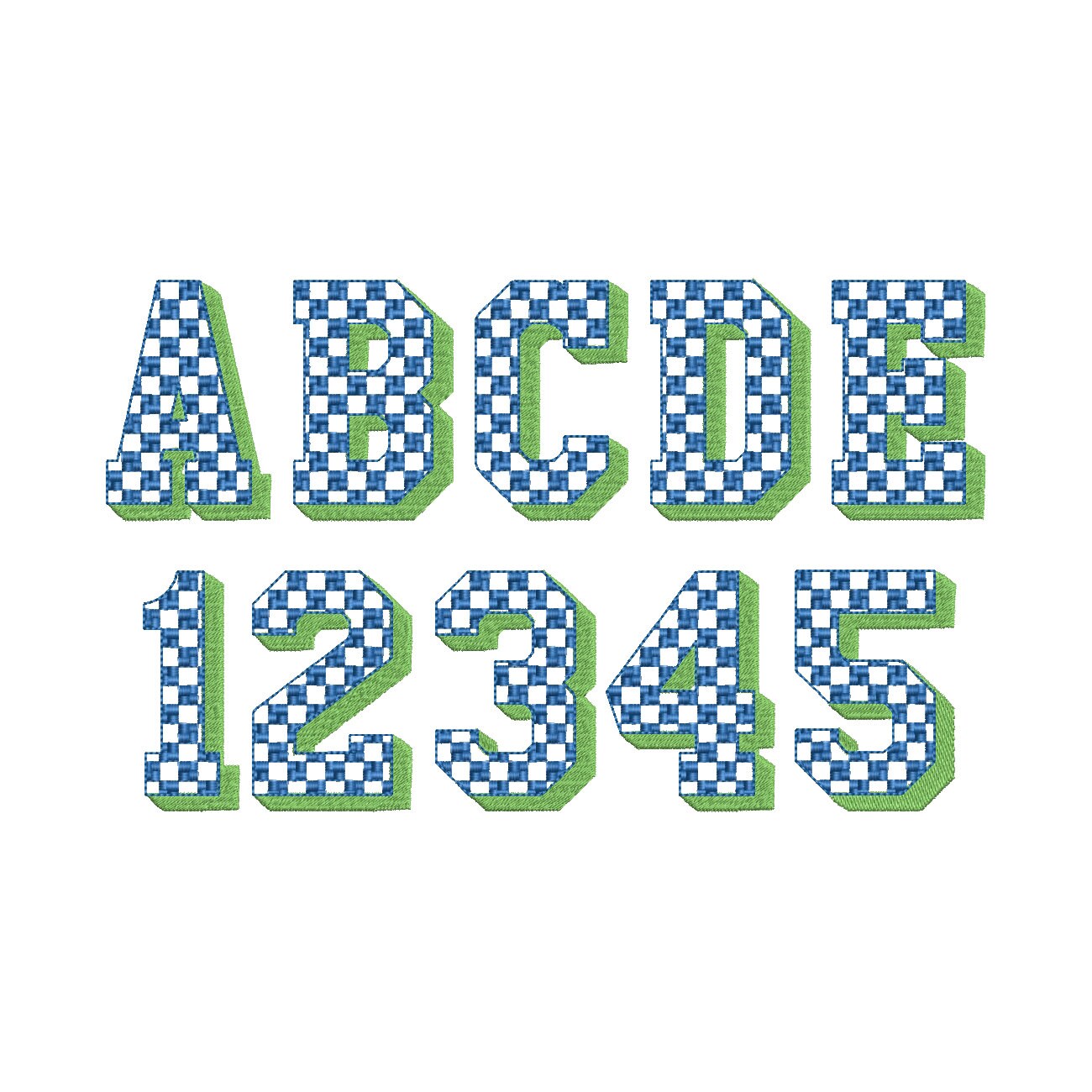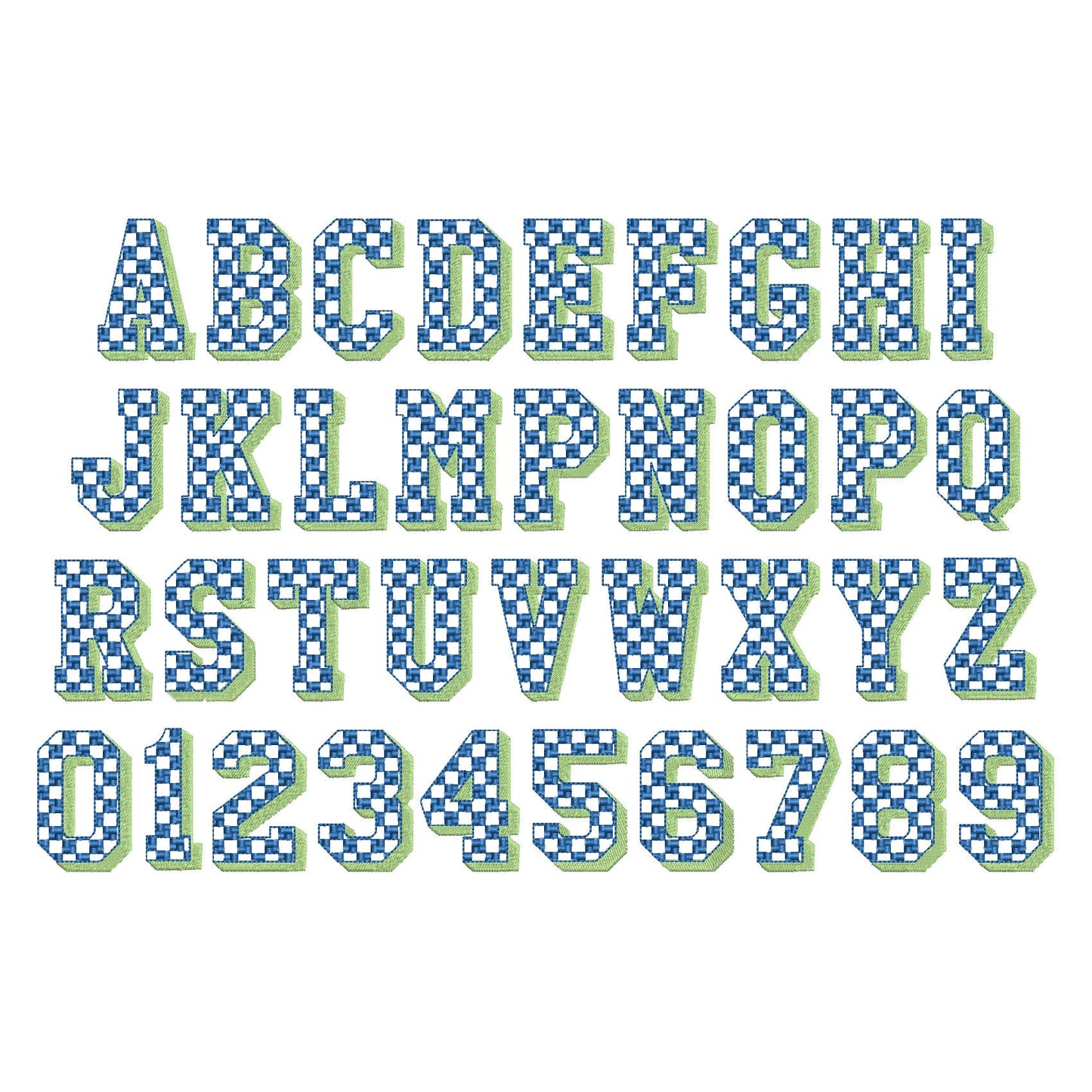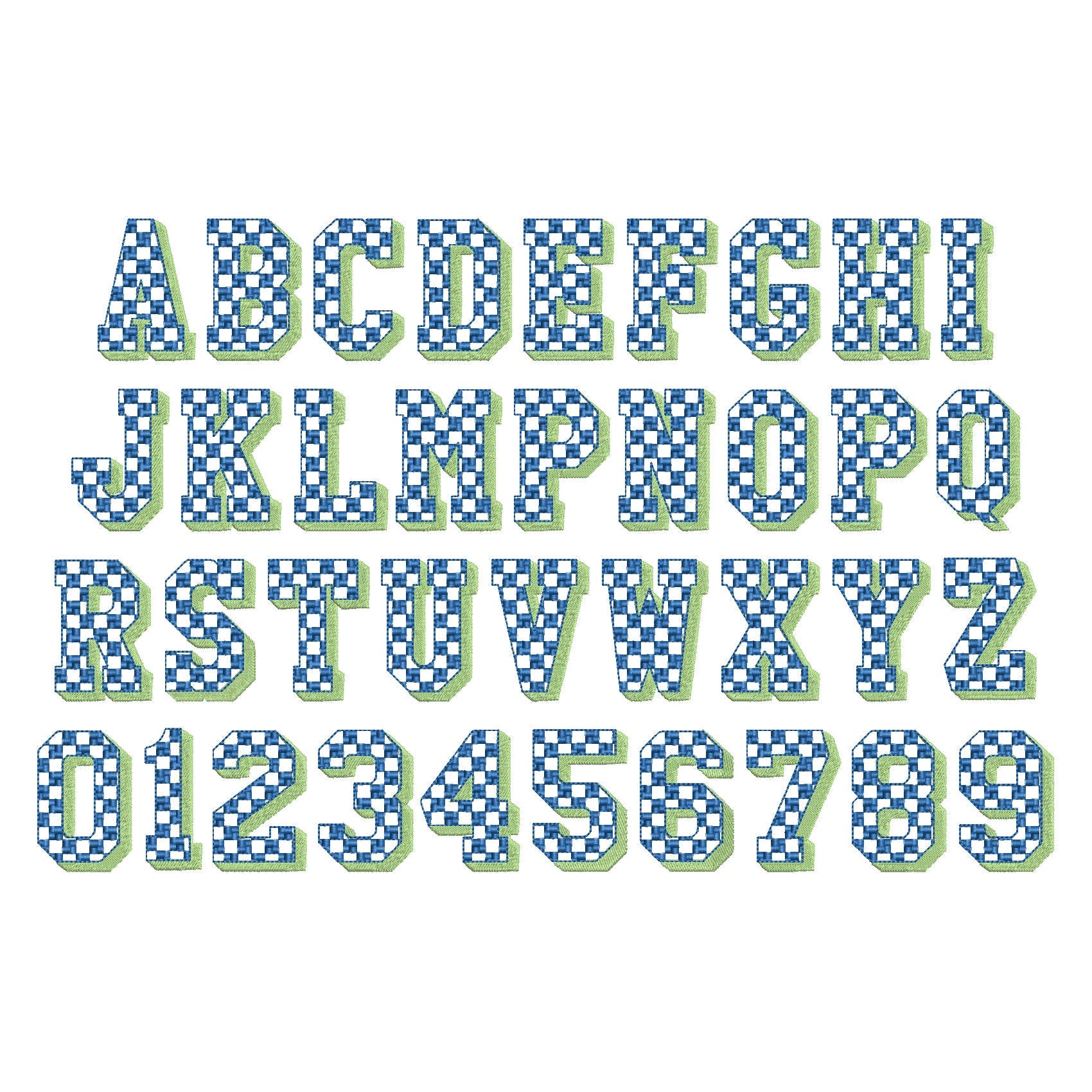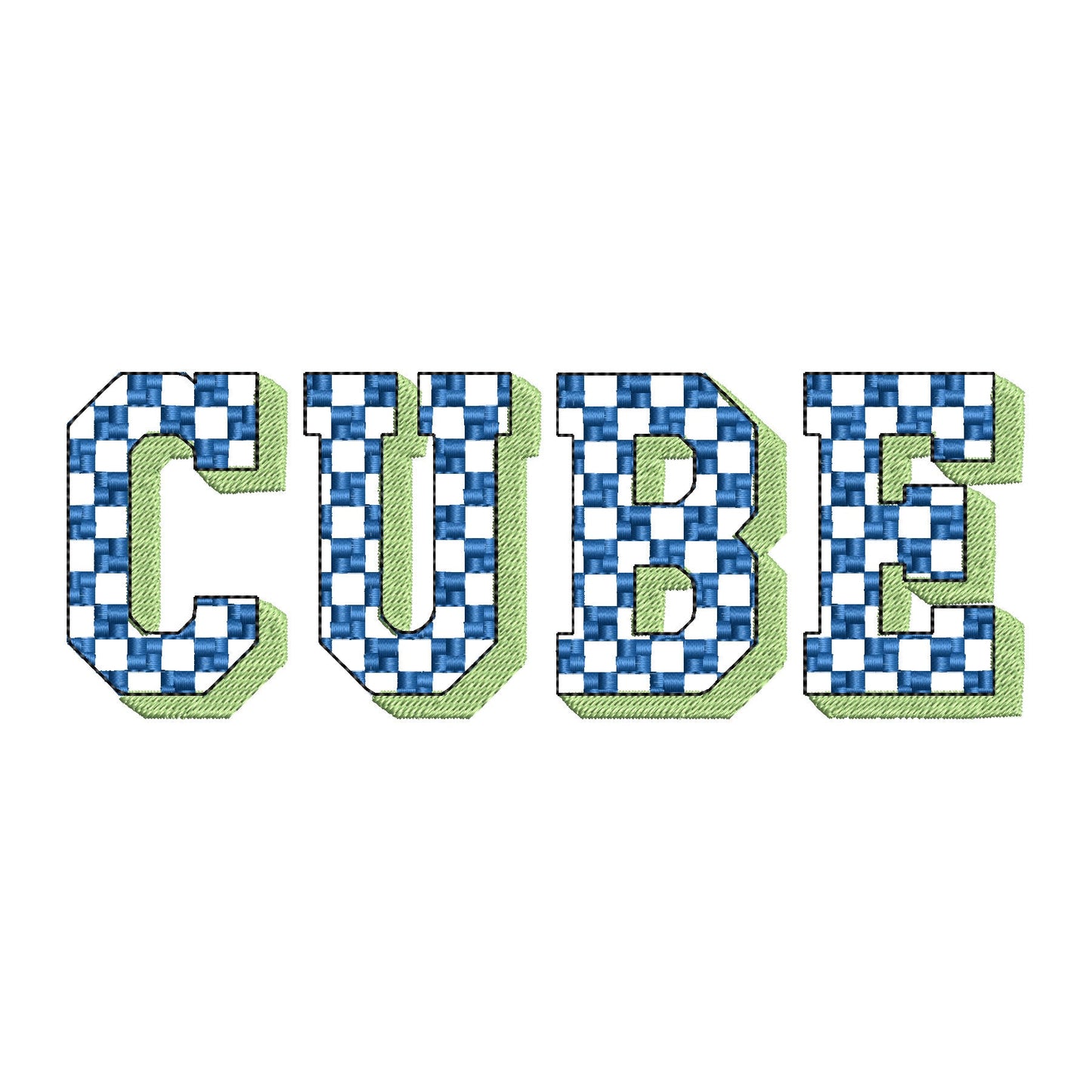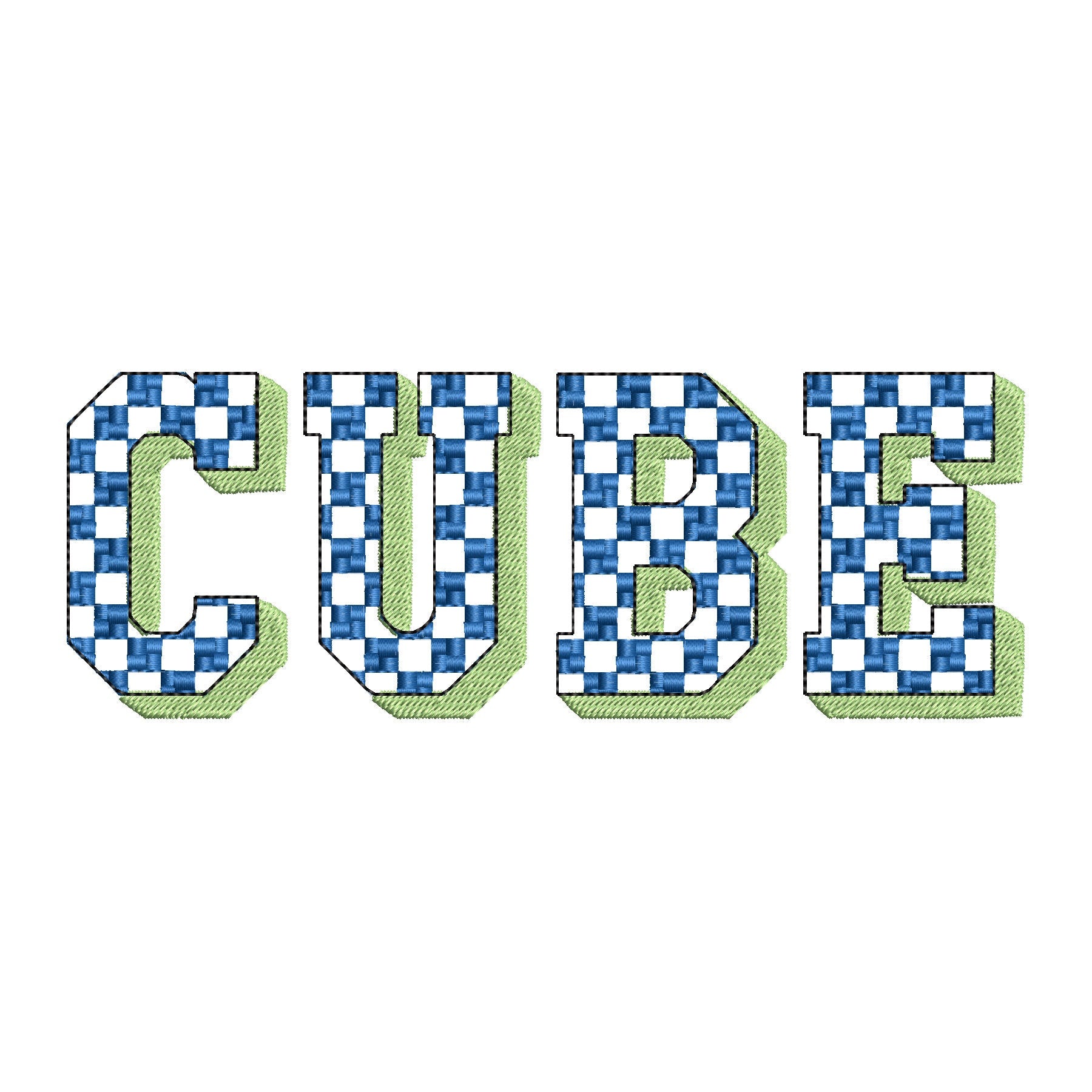
Or click to open the linkA patterned block font with a shadow, in three colors. Fun for boys' shirts, monograms, bags and pillows.
Uppercase letters A to Z and numbers 0 to 9. Five sizes: 1.5, 2, 2.5, 3 and 3.5 inches. A fill stitch pattern and shadow inside a light bean stitch outline; the fabric shows through.